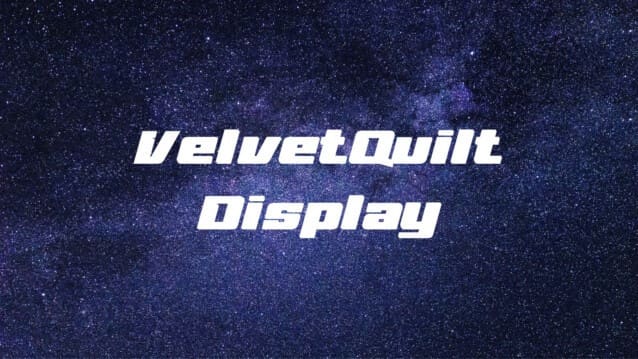
VelvetQuilt Display Font
VelvetQuilt Display Font, a new bold and fully textured typeface with eye-catching imagery. Font Forest is the designer of this rather stylish typeface.
The font file contains True type outlines with both Uppercase and lowercase letters, it also has numbers and some mandatory punctuations and symbols. It is great for your heading and some eye-catching quotes and summaries.
VelvetQuilt Display typeface is the best choice for your work because of its stylish and thrilled look and sharp texture. You can use this font for posters, banners, brochures, flyers outdoor ads, etc.